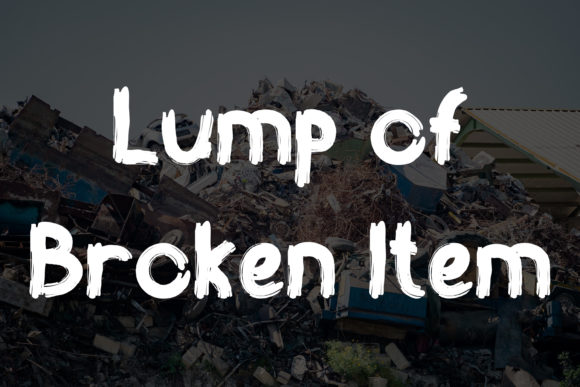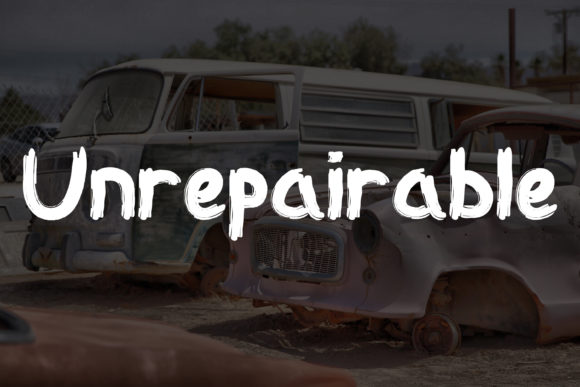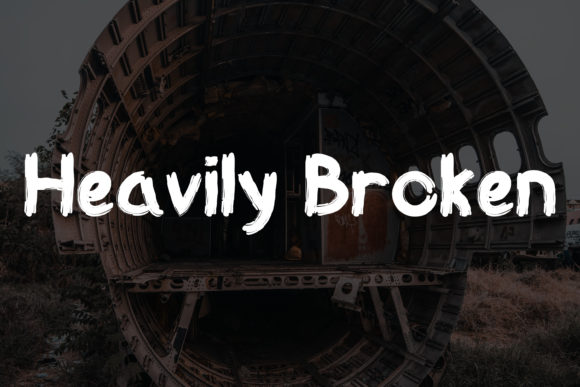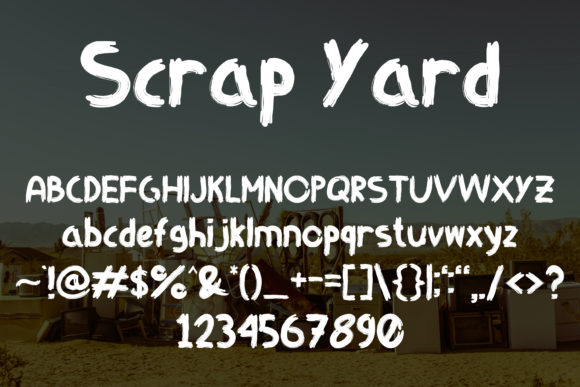
Introduction to Scrap Yard Font
Remember the excitement of rummaging through a thrift store or a garage sale, discovering hidden gems that spark creativity? That same thrill can be replicated when you stumble upon the perfect design resource – like the Scrap Yard Font. This cool, brushed, and friendly display font has the potential to breathe new life into your creative projects.
Whether you’re working on a school project or a leisure activity, Scrap Yard Font is an invaluable addition to your design library. Its versatility and high-quality design make it a sought-after asset among designers. With a transparent background, it’s easy to integrate into any project, ensuring your creations stand out from the crowd. In this article, we’ll delve into the world of Scrap Yard Font and explore its benefits for designers looking for a reliable design resource.
Key Features of Scrap Yard Font
- High-quality design resource ideal for creative projects, offering a unique and eclectic style.
- Transparent background allows for easy layering and customization in graphic design, digital art, and other creative endeavors.
- Scrap Yard Font is available in 5 different font styles, each with its own distinct character and flair.
- High-resolution fonts (up to 2048×2048 pixels) ensure crisp and clear typography, even at larger sizes.
- Perfect for designers, artists, and writers seeking a distinctive and eye-catching font for their next creative project.
Honest Review: Scrap Yard Font
As a designer, I’m always on the lookout for unique and high-quality design resources to elevate my creative projects. The Scrap Yard Font is one such resource that caught my attention, and I’m excited to share my honest review with you.
- ✨ Unique and edgy design aesthetic that’s perfect for creative projects
- ✨ High-quality font with clear and readable characters
- ✨ Transparent background, allowing for easy customization and layering
- ⚠️ Limited font sizes and styles, which may not be suitable for complex projects
- ⚠️ Not ideal for formal or professional designs, as it has a more casual and industrial feel
Overall, the Scrap Yard Font is a great addition to any designer’s toolkit. While it may not be perfect for every project, its unique design aesthetic and high-quality font make it an excellent choice for creative and edgy projects. With a free download and transparent background, it’s a resource that’s hard to pass up.
How to Use Scrap Yard Font
Tips for Getting the Most Out of Scrap Yard Font
For the best results, use the Scrap Yard Font in conjunction with other high-quality design elements, such as images and graphics. Experiment with different font sizes, colors, and styles to create a unique and visually appealing design.
The Scrap Yard Font is suitable for a wide range of creative projects, including:
Can I customize Scrap Yard Font to fit my design needs?
Yes, Scrap Yard Font is fully editable, allowing you to customize the font to fit your design needs. You can adjust the font size, color, and style to match your creative project. Additionally, you can use the font in conjunction with other design elements, such as graphics and textures, to create a unique and eye-catching design.